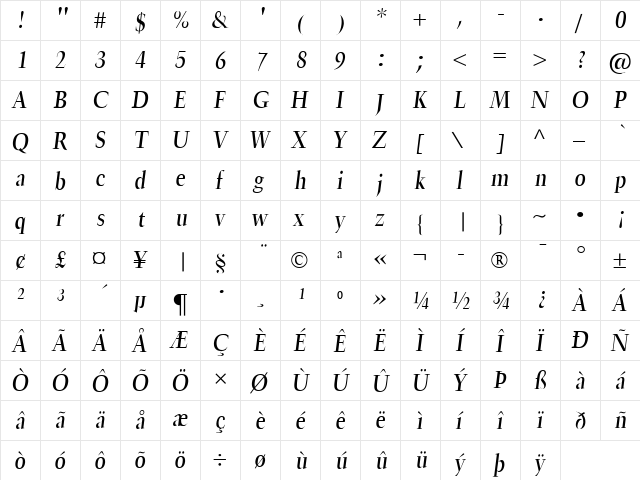
TrumpetLite Italic
Design Context for TrumpetLite Typeface
TrumpetLite is a composed and adaptable typeface that performs quietly and consistently across a wide range of design contexts. The slanted form adds forward momentum and visual energy.
Pro Tip: Try TrumpetLite for annotation and caption copy alongside an upright companion — the contrast in angle creates a dynamic but ordered typographic system.